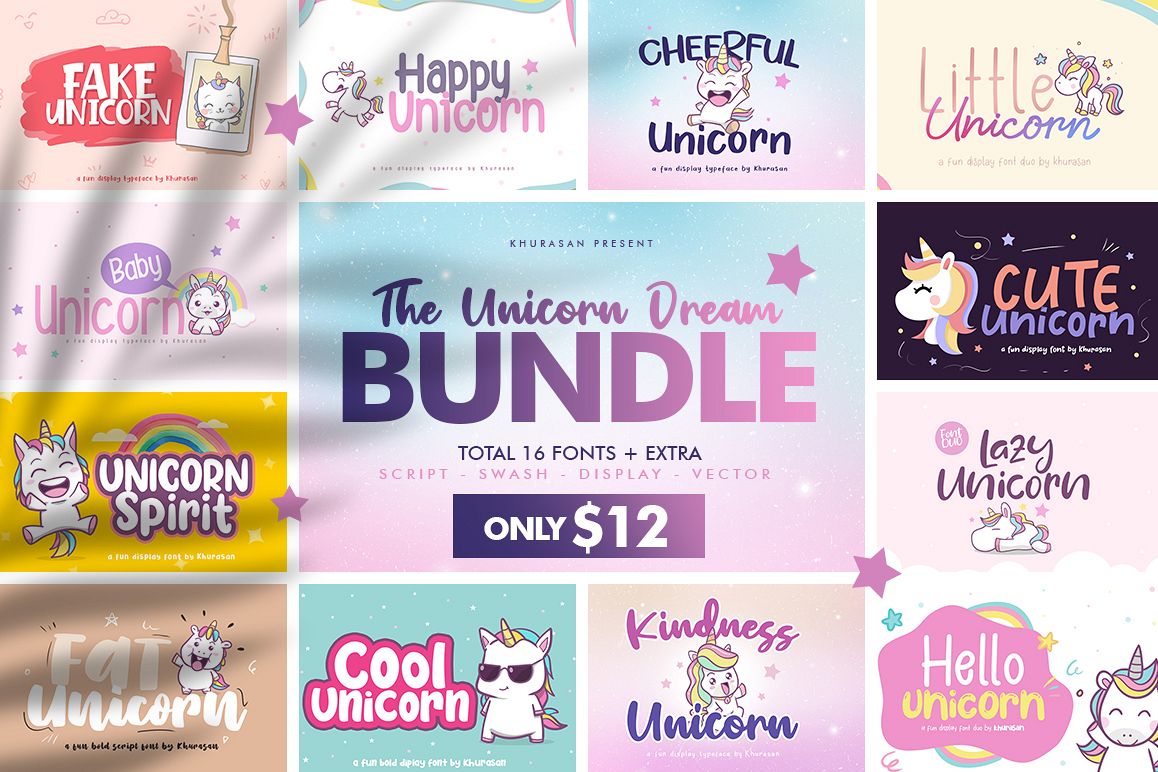
The Unicorn Dream Bundle
Happy Unicorn Gradient
Hello Unicorn Display
Hello Unicorn
Lazy Unicorn
Cheerful Unicorn
Cute Unicorn
Fake Unicorn
Baby Unicorn
Happy Unicorn
Cool Unicorn
Little Unicorn Sans
Baby Unicorn Bold
Little Unicorn Script
Fat Unicorn
Lazy Unicorn Display
Unicorn Spirit
Kindness Unicorn
Including some of the best typography with ligatures, multilingual, and more font families.
This package also includes an extra bonus of fun and beautiful vectors that you can use for your design project.